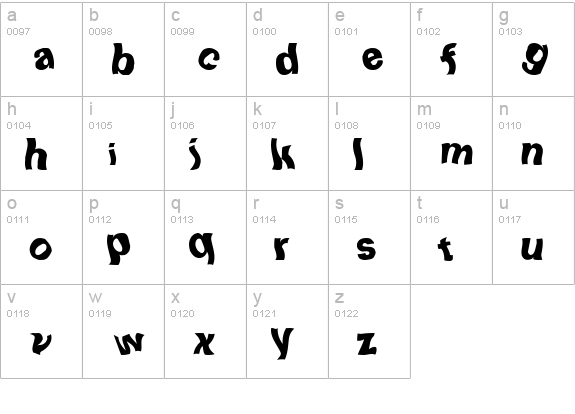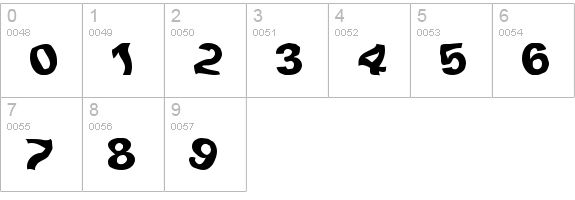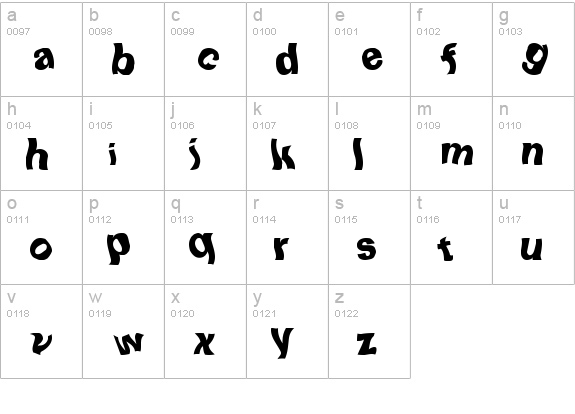
LinusPlay AOE Font Details
LinusPlay AOE font is a stunning display typeface that exudes creativity and personality. With its bold and dynamic design, this font is perfect for making a statement in your projects. The sharp edges and unique detailing of each character give LinusPlay AOE font a modern and edgy feel, making it ideal for a wide range of design purposes. Best of all, LinusPlay AOE font is completely free to use! You can download this versatile font at FontsMarket.com, where it is readily available for your design needs. Whether you're working on branding, posters, or digital media, LinusPlay AOE font will surely make your text stand out and leave a lasting impression. Upgrade your typography game with LinusPlay AOE font today and watch your designs come to life!